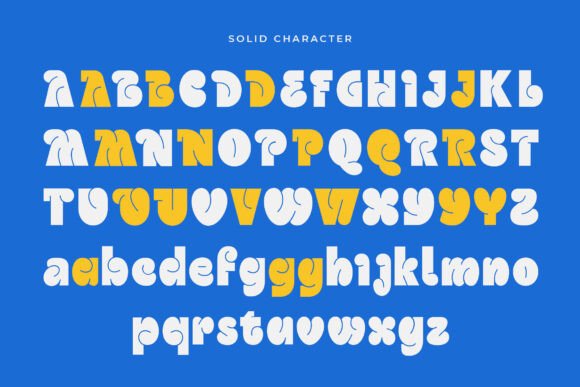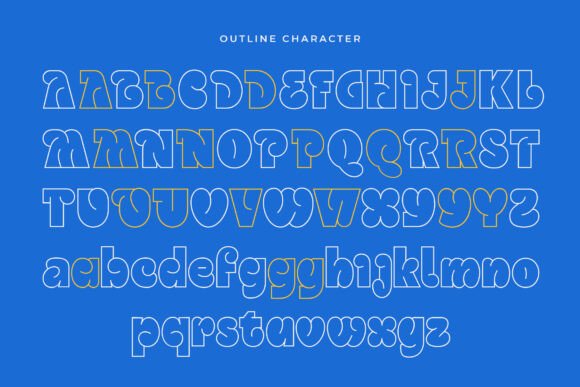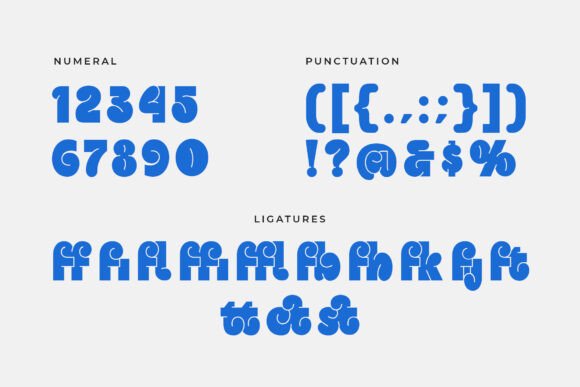
Introduction to Kinder Ground Font
Kinder Ground – Playful and Fun Display Font – Modern Bold Rounded Solid and Outline Font.
Kinder Ground is a Playful Display Font that brings a joyful, youthful vibe to any project Available in both outline and solid styles, this font is perfect for adding a touch of fun and creativity.
Kinder Ground Font offers exceptional quality and versatility, making it a valuable addition to your design toolkit. Whether you’re creating for personal projects or commercial use, Kinder Ground Font delivers professional results.